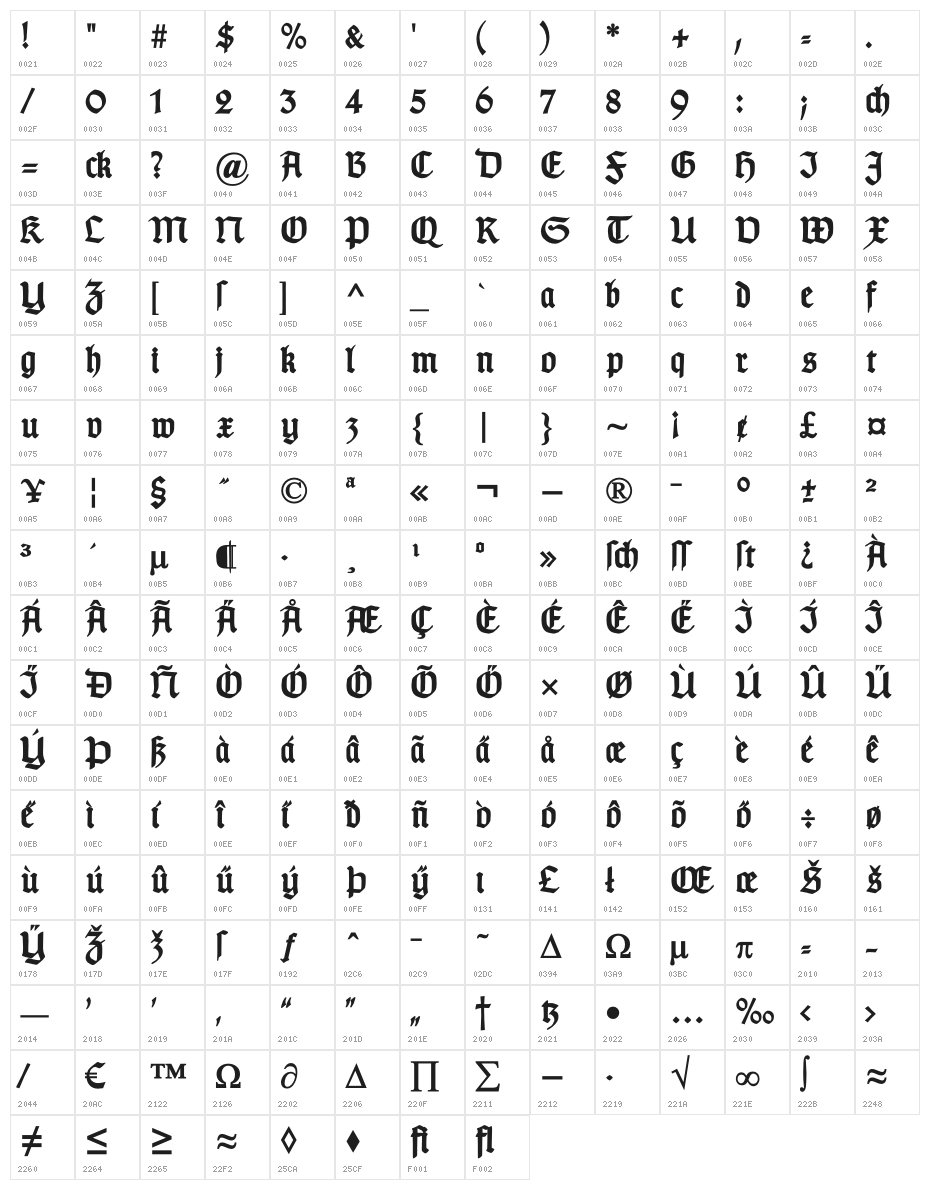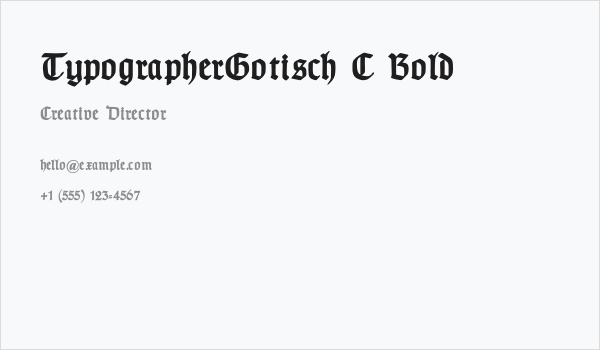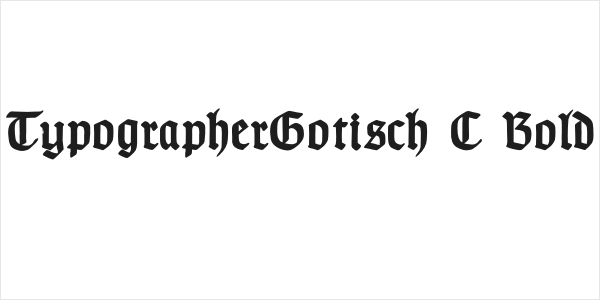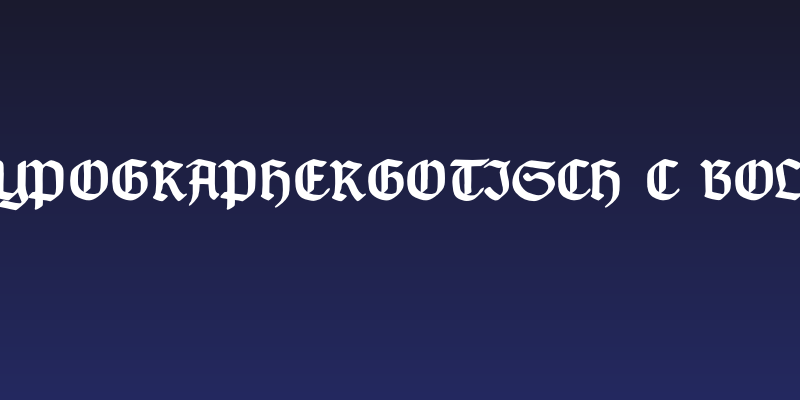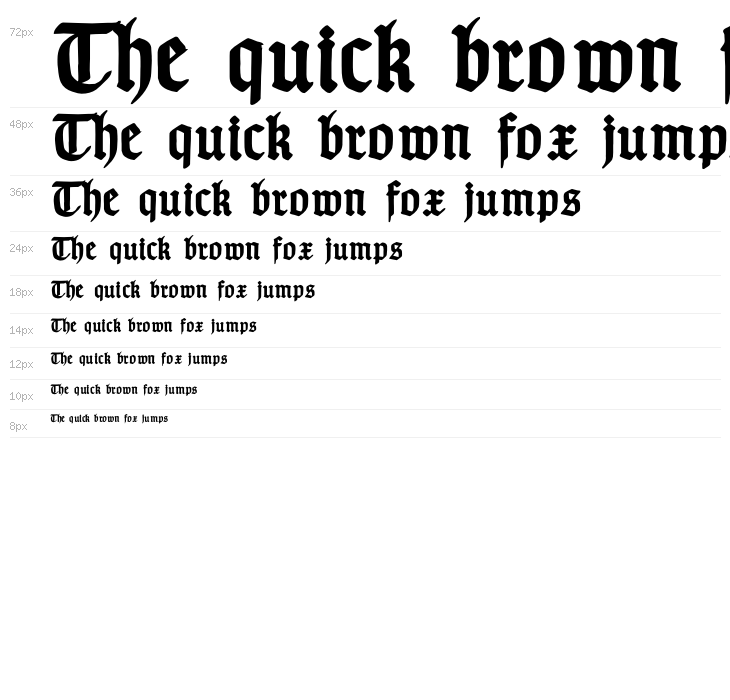
TypographerGotisch C Bold Font
TypographerGotisch C Bold Description
This font exhibits a traditional blackletter style, characterized by its ornate and intricate letterforms. The uppercase and lowercase letters feature sharp, angular lines with dramatic curves, typical of Gothic script. The numerals and special characters maintain the same stylistic elements, ensuring consistency across all glyphs. The bold weight enhances the font's presence, making it suitable for impactful designs. The overall appearance is reminiscent of medieval manuscripts, offering a historical and authoritative feel.
| Proposed Projects | Ideal for projects requiring a historical or Gothic touch, such as book covers, posters, or branding for vintage-themed events. |